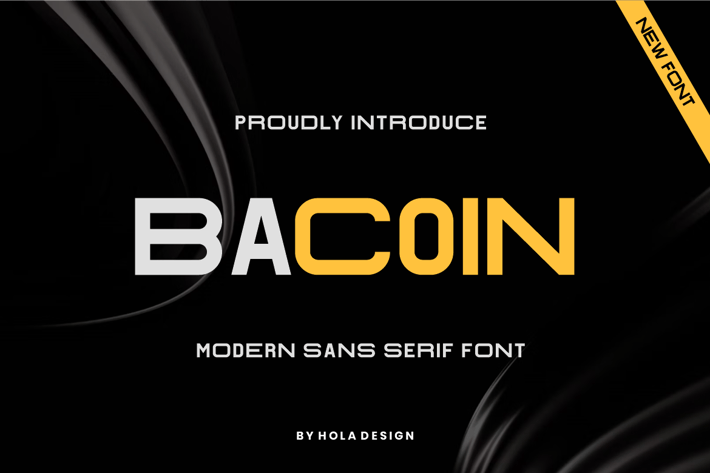
Bacoin - Modern Sans Serif Font
Bacoin - Modern Sans Serif Font Font is unique . Ready to use for your design like labeling, movie sceen, poster, movie title, gigs, album covers, logos, and much more.